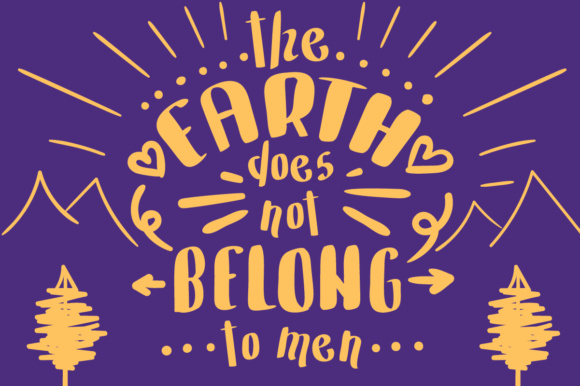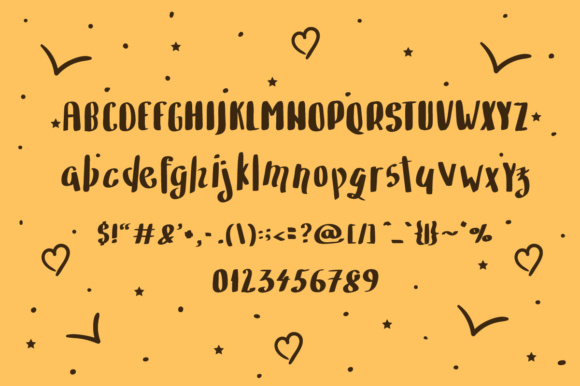
Down to Earth Font: A Playful and Earthy Typeface for Creative Projects
Are you looking for a font that can add a touch of playfulness and whimsy to your designs? Look no further than the Down to Earth font! This bold and rounded typeface has an earthy feeling to it, making it perfect for a variety of creative projects. In this article, we’ll take a closer look at the Down to Earth font, its features, and how you can use it to add a personal touch to your designs.
What is Down to Earth Font?
Down to Earth is a playful font that’s designed to evoke a sense of fun and approachability. Its bold and rounded letters have a friendly, earthy feel to them, making it perfect for projects that require a lighthearted touch. The font is highly versatile and can be used for a wide range of applications, from kids’ projects to more mature designs that require a playful twist.
Key Features of Down to Earth Font
So, what makes Down to Earth font so special? Here are some of its key features:
- Bold and Rounded Letters: The Down to Earth font features bold and rounded letters that are easy to read and fun to look at. The rounded edges give the font a soft, friendly feel that’s perfect for kids’ projects and other creative endeavors.
- Earthy Feeling: The font has an earthy, natural feel to it, which makes it perfect for designs that require a organic, handmade look.
- Playful Vibe: The Down to Earth font is designed to be playful and fun, making it perfect for projects that require a lighthearted touch.
- Highly Versatile: The font is highly versatile and can be used for a wide range of applications, from kids’ projects to more mature designs.
Uses for Down to Earth Font
So, what can you use the Down to Earth font for? The possibilities are endless! Here are some ideas to get you started:
- Kids’ Projects: The Down to Earth font is perfect for kids’ projects, such as posters, flyers, and other educational materials.
- Crafting and Scrapbooking: The font’s earthy, natural feel makes it perfect for crafting and scrapbooking projects that require a personal touch.
- Playful Signage: Use the Down to Earth font to create playful signs for your business or home.
- Social Media Graphics: The font is perfect for creating social media graphics that require a fun and playful touch.
Tips for Using Down to Earth Font
Here are some tips for using the Down to Earth font in your designs:
- Pair it with Other Fonts: The Down to Earth font pairs well with other fonts, such as sans-serif fonts and script fonts. Experiment with different pairings to find the one that works best for your project.
- Use it in Large Sizes: The font is designed to be bold and playful, so use it in large sizes to make a statement.
- Add Texture and Patterns: The Down to Earth font has an earthy, natural feel to it, so consider adding texture and patterns to your design to enhance this feel.
| Font Name | Down to Earth Font |
| Author | Lickable Pixels |
The Down to Earth font is a playful and earthy typeface that’s perfect for a variety of creative projects. Its bold and rounded letters have a friendly, approachable feel to them, making it perfect for kids’ projects, crafting and scrapbooking, playful signage, and social media graphics. With its highly versatile design and earthy feel, the Down to Earth font is sure to become a favorite in your design arsenal.